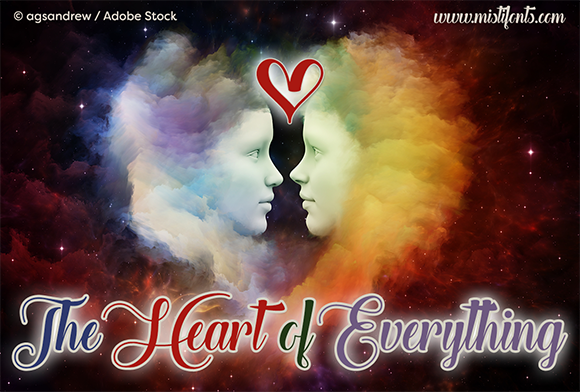
The Heart of Everything Font
Welcome to The Heart of Everything, a script font that will transform your creative visions into captivating realities. With its elegant curves and flowing lines, this font exudes a timeless charm that will leave a lasting impression on any project.
Crafted by the talented Misti, The Heart of Everything is more than just a font; it's an expression of your unique style and personality. Whether you're designing invitations, creating social media graphics, or adding a touch of sophistication to your website, this font will elevate your work to new heights.
Its effortless grace lends itself perfectly to wedding stationery, where it will capture the romance and joy of your special day. The intricate details and flowing lines add a touch of whimsy to invitations, RSVP cards, and table numbers, creating a cohesive and unforgettable ambiance.
Beyond the world of weddings, The Heart of Everything shines in logos, branding, and marketing materials. Its versatility allows you to create a visually striking brand identity that will set you apart from the competition. The flowing lines evoke a sense of movement and energy, perfectly capturing the essence of your brand's personality.
But The Heart of Everything isn't just beautiful; it's also incredibly versatile. Use it to add a touch of elegance to your social media posts, create eye-catching headlines and body copy for your website, or design stunning posters and flyers that will grab attention. The possibilities are endless.
With The Heart of Everything, you'll have a font that not only meets your design needs but also reflects your personal style. Its timeless appeal ensures that your creations will stand the test of time, leaving a lasting impression on your audience.